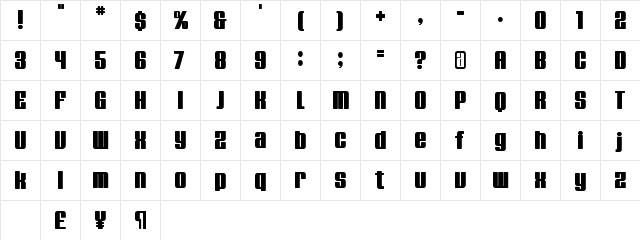
Softsoul Bold
| Foundry | Donald Beekman |
| Designer | Donald Beekman |
Design Context for Softsoul Typeface
Softsoul is a composed and adaptable typeface that performs quietly and consistently across a wide range of design contexts. Its bold stroke weight gives it real presence on the page.